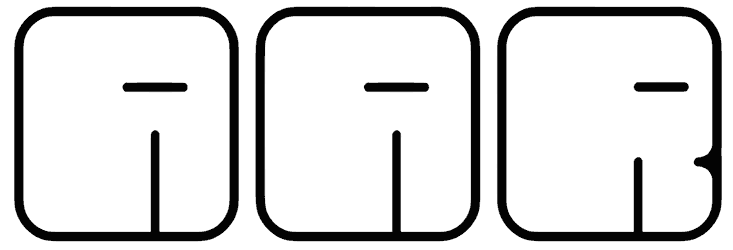
AAR Font
The squared-off appearance of the fancy font AAR is ideal for creating an eye-catching, contemporary atmosphere. Although it lacks lowercase letters, this font’s two distinct, daring looks make it a wonderful option for…
The squared-off appearance of the fancy font AAR is ideal for creating an eye-catching, contemporary atmosphere. Although it lacks lowercase letters, this font’s two distinct, daring looks make it a wonderful option for artwork that has to stand out.